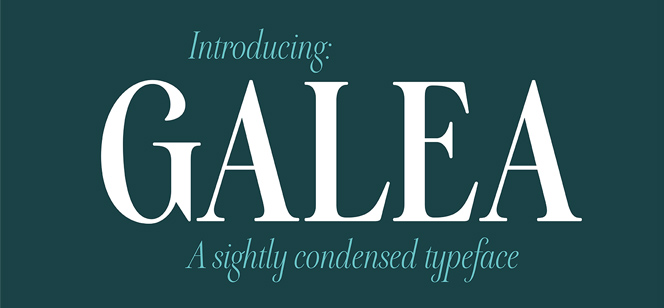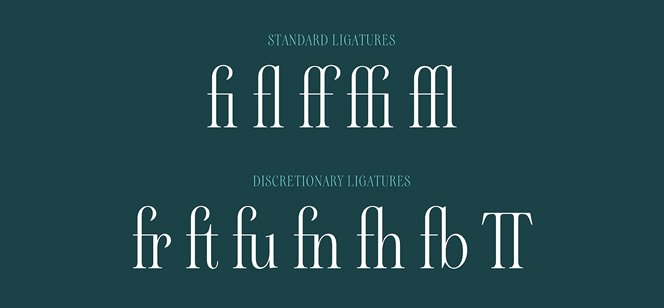
Galea Display
Galea Display by Isabel Urbina-Peña (Letra Type foundry) is a narrow stylish high-contrast Serif with long ascenders and descenders. Its ‘El Greco’ proportions and curly terminals further contribute to the elegant, neat and gentle outlook. As you can guess from its name Galea Display was designed as a display typeface – perfect at large sizes for editorial purposes as titling, captions and sub-headings, etc.
Galea Display type family consists of three weights: Regular, Bold, and Black, plus one italic style. It comes with more than 260 glyphs, OpenType options such as Discretionary Ligatures, Kerning, Standard Ligatures, and multilingual support.
Galea Display is the first typeface designed by Isabel Urbina-Peña while at Cooper Type, a program in the Cooper Union, NYC, in Jesse Ragan’s class of Typeface design. It received an Honorable Mention from the Fine Press Book Association (FBPA) in the Text Family Category, 2013. Also, it is featured in the book ‘Playing with Type: 50 Graphic Experiments for Exploring Typographic Design Principles’ by Lara McCormick.
Isabel Urbina-Peña is graphic designer from Caracas, Venezuela, based in Brooklyn, USA. She has worked at C&G Partners LLC, American Museum of Natural History, Museo de Arte Contemporáneo de Caracas and for a range of clients like Variety, Campari & Diner Journal. Currently she is working as a cover designer at Random House in New York City. In 2014 she established Letra Type – a small independent foundry oriented toward original, well-crafted type designs.